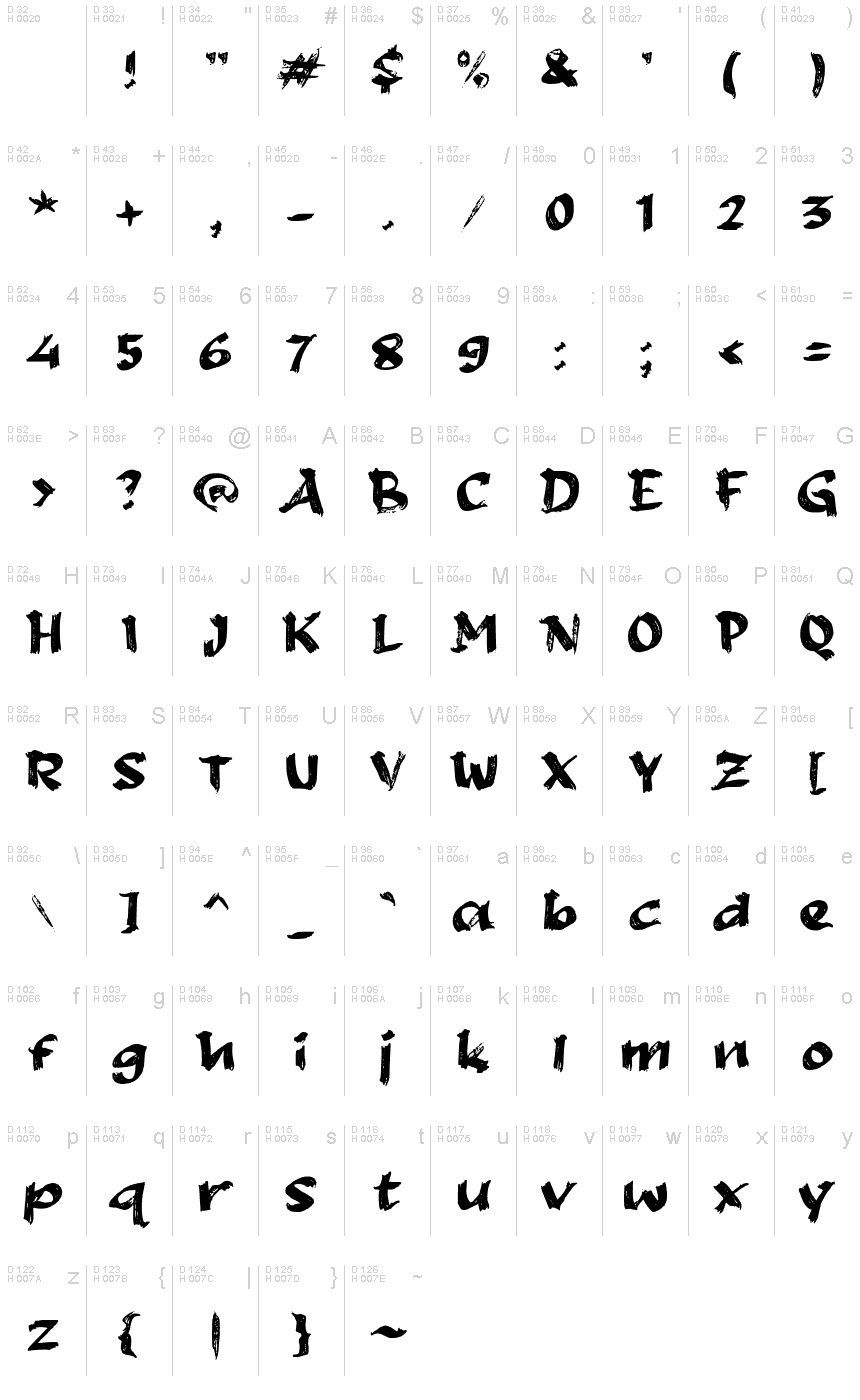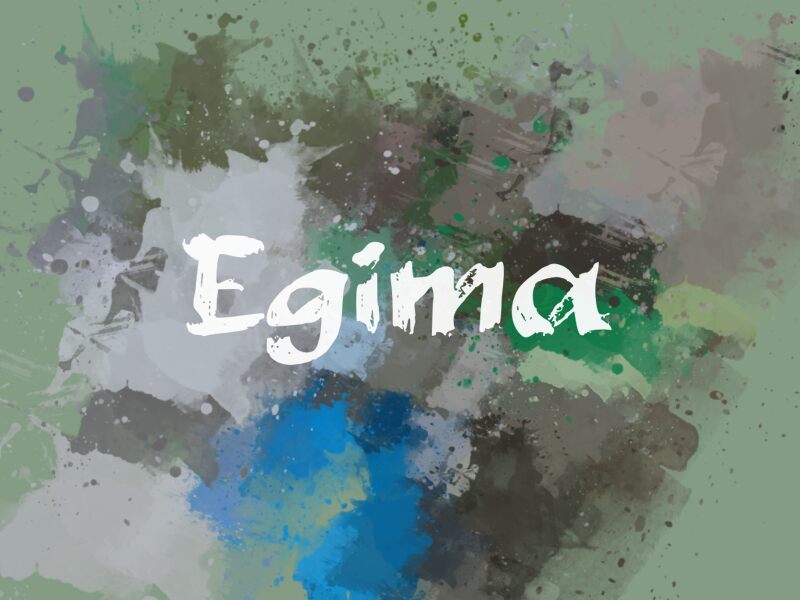
Egima
Egima, the bold brush font by wep, exudes creativity and adds a touch of artistic flair to any project. With its semi-expanded width, this font is perfect for eye-catching headlines and attention-grabbing designs. Its bold weight makes it suitable for branding projects that demand a strong visual impact, while its brush style adds a handcrafted feel to invitations, logos, and social media graphics. Whether designing posters, packaging, or even t-shirts – Egima is your go-to choice for projects that require a bold and expressive font with a unique touch.